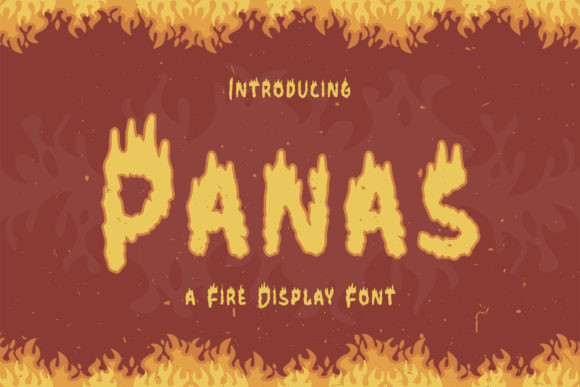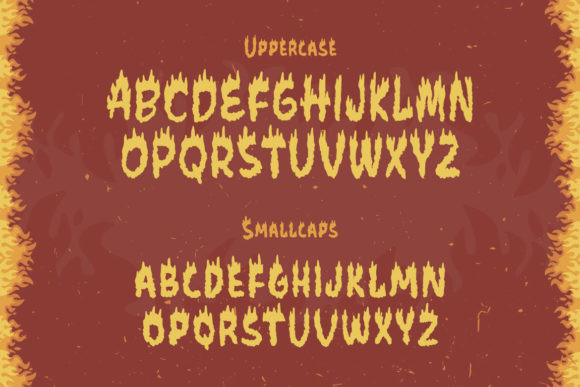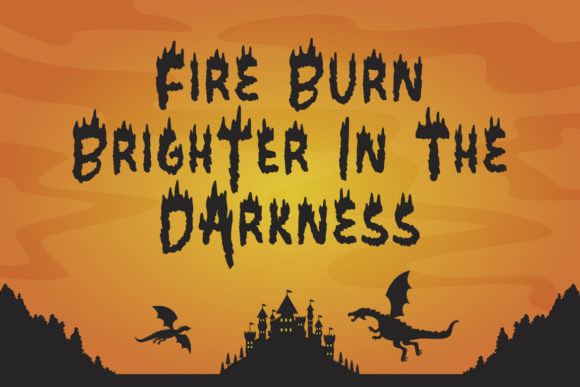
Panas Font
Panas is a fiery and fun display font that looks incredibly unique and attractive. No matter the topic, this font will be an incredibly asset to your fonts’ library, as it has the potential to elevate any creation.